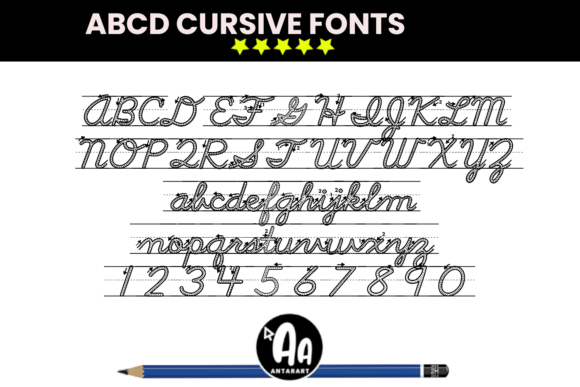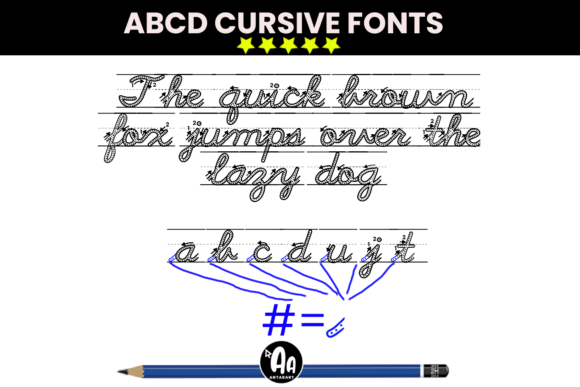
Unlock the Power of Handwriting with Abcd Cursive Outline Dotted Arrows Lined Font
Are you a teacher, homeschooler, or designer looking for a fun and interactive way to teach cursive handwriting? Look no further than the Abcd Cursive Outline Dotted Arrows Lined Font! This innovative font is designed to make learning and teaching cursive handwriting a breeze, with a unique combination of outlined, dotted, and lined styles that will engage students of all ages.
Inspired by the D’Nealian Handwriting Method
The Abcd Cursive Outline Dotted Arrows Lined Font is inspired by the renowned D’Nealian handwriting method, which emphasizes the importance of proper letter formation and handwriting techniques. This font takes the best of the D’Nealian approach and puts it into a versatile and easy-to-use package that can be used with any software.
Create Thousands of Worksheets with Ease
With the Abcd Cursive Outline Dotted Arrows Lined Font, you can create thousands of worksheets using your favorite software. Whether you’re a teacher looking to create customized worksheets for your students or a homeschooler seeking to make learning fun and interactive, this font is the perfect tool for the job.
Key Features of the Font
- Cursive Alphabet Letter Recognition: The font includes both uppercase and lowercase letters, as well as numbers 0-9, in each style, making it easy to teach and learn cursive handwriting.
- Outlined, Dotted, and Lined Styles: The font features a unique combination of outlined, dotted, and lined styles that make it easy to create fun and interactive tracing exercises.
- Support for Teachers and Homeschoolers: The font is designed to support teachers and homeschoolers alike, providing a valuable resource for anyone looking to teach cursive handwriting in a fun and engaging way.
The Abcd Cursive Outline Dotted Arrows Lined Font is not just a valuable resource for teachers and homeschoolers – it’s also a versatile tool for designers and crafters. With its unique combination of outlined, dotted, and lined styles, this font can be used to create a wide range of projects, from custom stationery and invitations to educational materials and worksheets.
Why Choose the Abcd Cursive Outline Dotted Arrows Lined Font?
So why choose the Abcd Cursive Outline Dotted Arrows Lined Font? Here are just a few reasons:
- Engaging and Interactive: The font’s unique styles make it easy to create fun and interactive tracing exercises that will engage students of all ages.
- Versatile: The font can be used with any software, making it a convenient addition to your teaching or design toolkit.
- Effective: The font is designed to help students build strong handwriting skills by mastering cursive handwriting through fun and interactive exercises.
The Abcd Cursive Outline Dotted Arrows Lined Font is a valuable resource for anyone looking to teach or learn cursive handwriting in a fun and interactive way. With its unique combination of outlined, dotted, and lined styles, this font is sure to engage students of all ages and provide a solid foundation for building strong handwriting skills. Whether you’re a teacher, homeschooler, or designer, this font is a must-have tool for creating customized worksheets and educational materials.